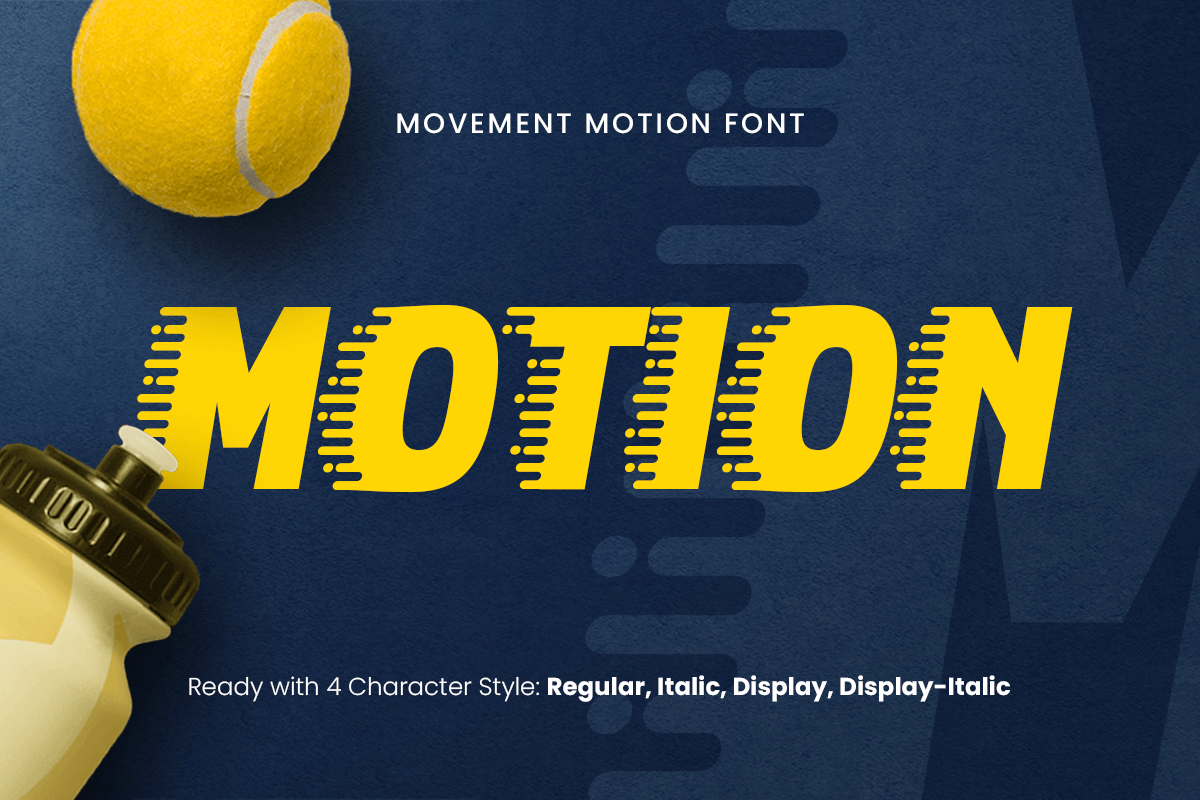
Motion
-Movemont Motion Font
Motion is a font crafted to embody the essence of movement and energy. Inspired by the fluidity and rhythm of motion, this typeface combines sleek curves and dynamic lines to create a powerful presence. Whether you're working on branding, posters, or logo design, Motion delivers a fresh and bold aesthetic that resonates with energy.
Perfect for contemporary designs, Motion excels in projects that require a modern and futuristic touch. Its versatility ensures that it can adapt to various styles, making it suitable for everything from promotional materials to tech-oriented designs.
With Motion, you can bring vibrancy and life to your projects. Its unique characteristics make it a standout choice for designers looking to emphasize speed, energy, and creativity in their work.
Motion - Movement Motion Font Features:
• Dynamic Motion Letterforms
• Ready with 4 Styles: Regular, Italic, Display, Display Italic
• Unique Punctuation, Number, and Symbol